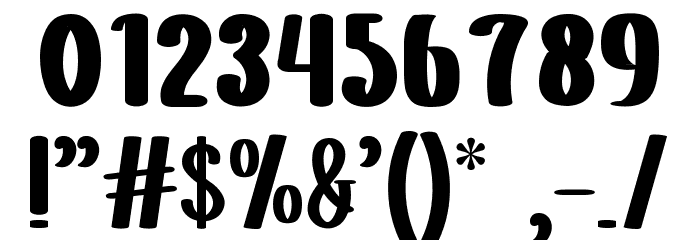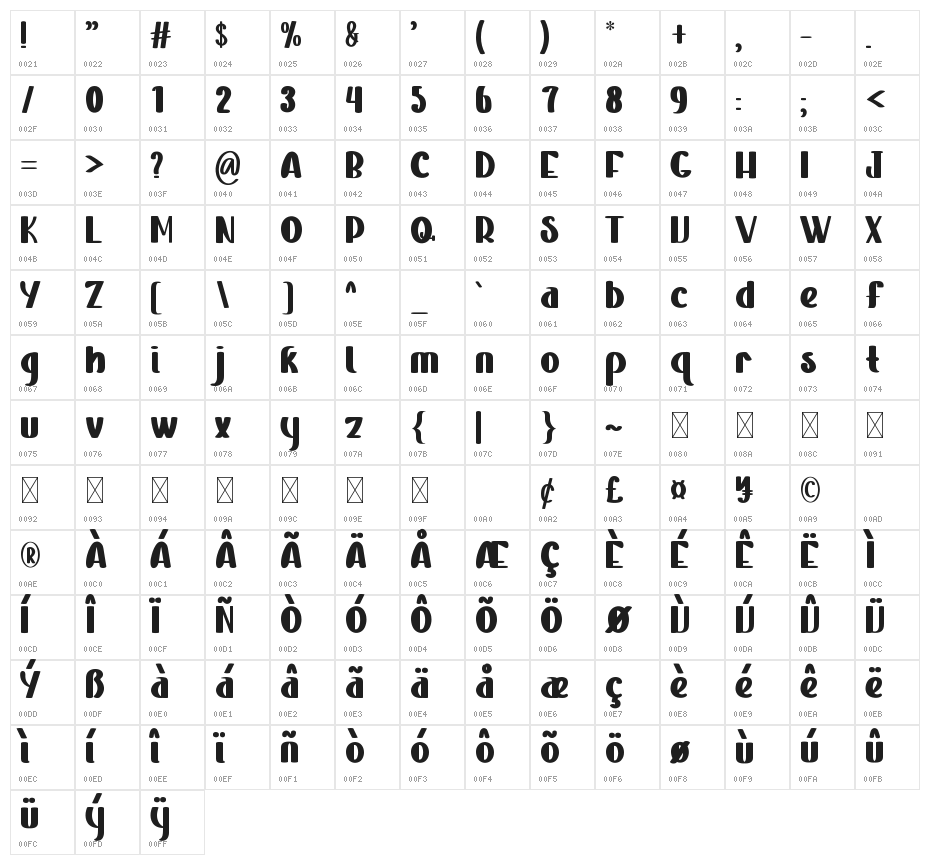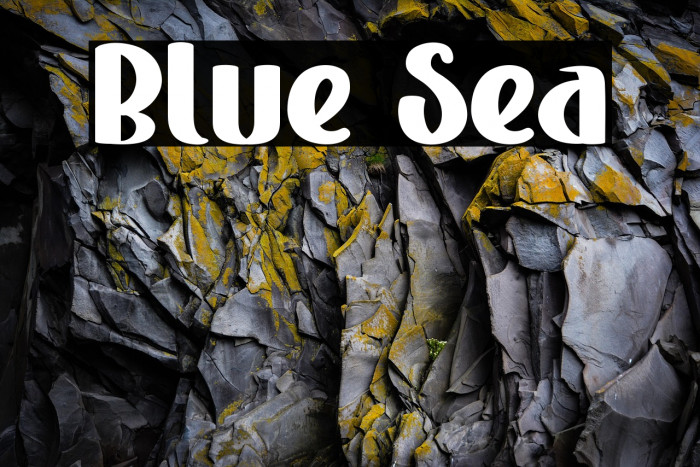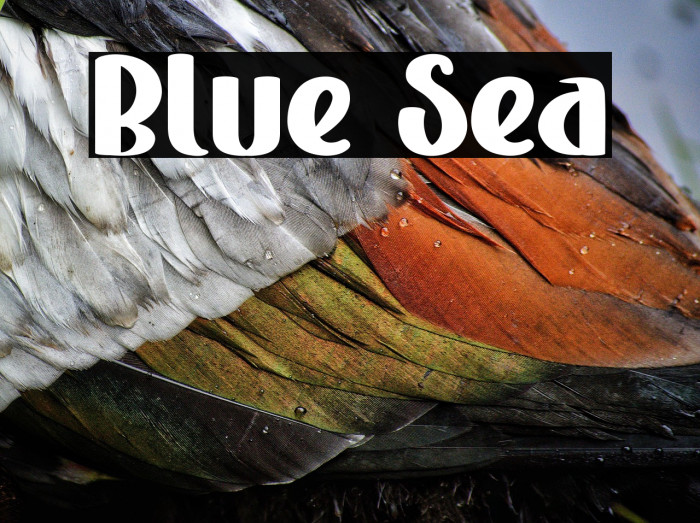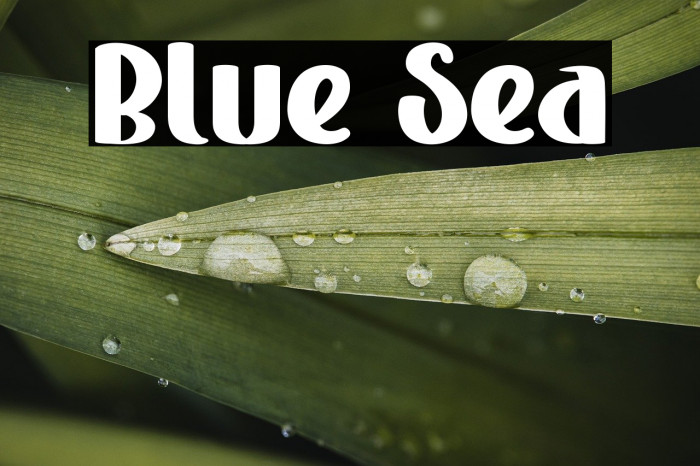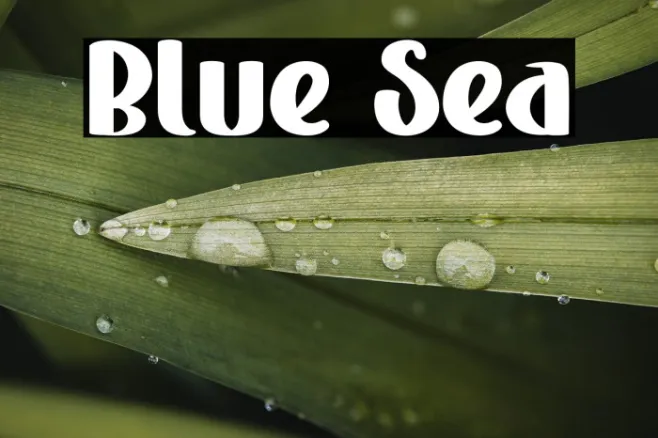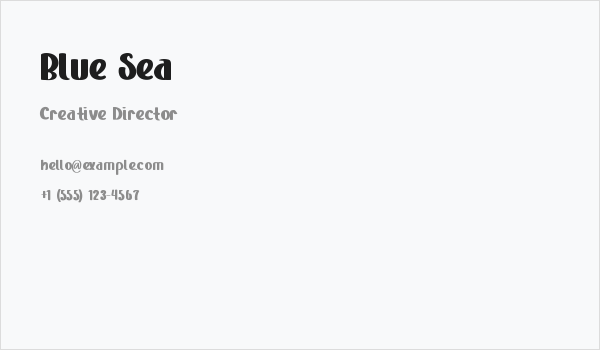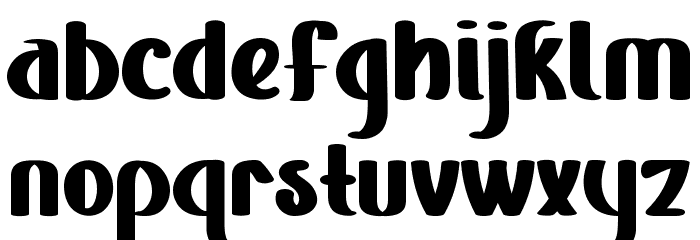
Blue Sea Font
Blue Sea Description
This font features a bold and playful design with a unique blend of curves and sharp edges. The uppercase letters are robust and slightly condensed, giving a strong presence, while the lowercase letters maintain a consistent flow with rounded terminals. The numerals are equally bold, ensuring readability and impact. Special characters are designed with the same playful aesthetic, making them stand out. The overall style is modern and decorative, suitable for projects that require a fun and engaging typeface.
| Proposed Projects | Ideal for children's books, playful branding, posters, and creative advertising. |